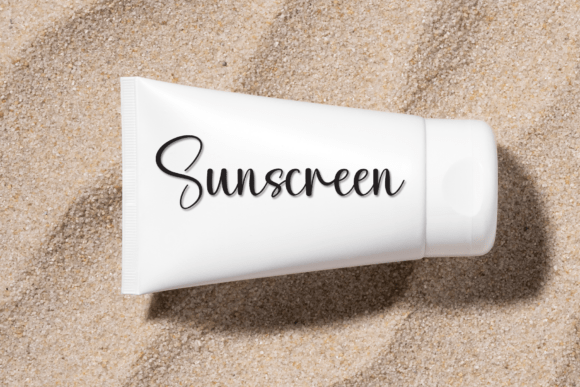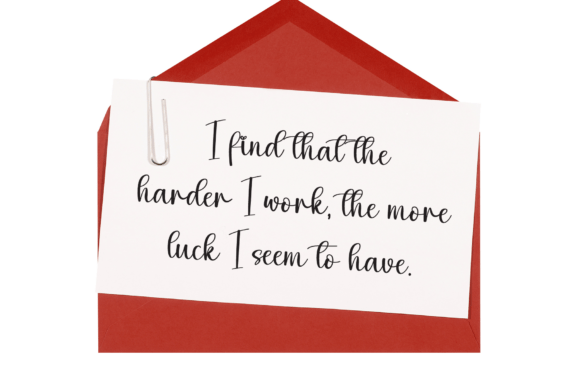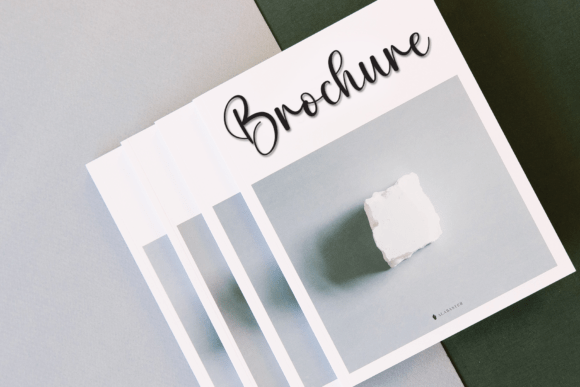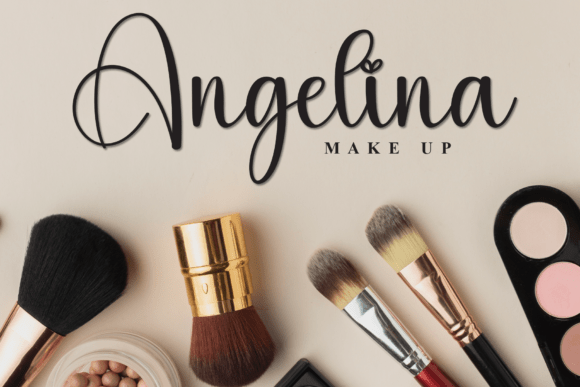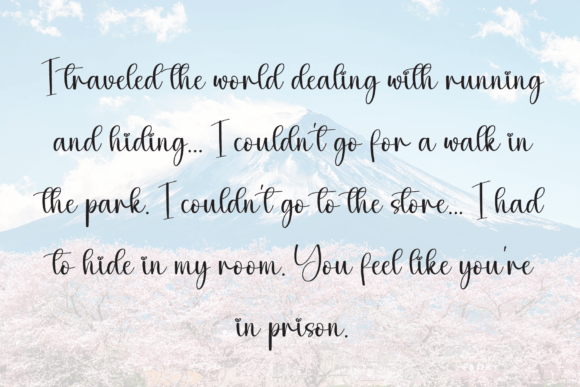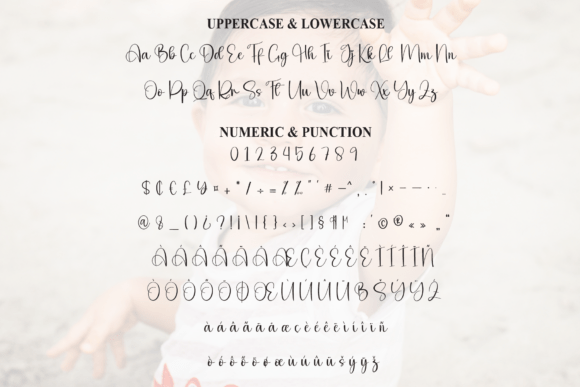
The Perfect Font for Your Next Design Project
Have you ever found yourself staring at a blank page, trying to bring your design ideas to life? We’ve all been there. It’s that moment when you’re about to give up, and then – like a ray of sunshine – you stumble upon the perfect font. For designers, finding the right font can be a game-changer. It’s what sets your work apart, adds a touch of personality, and elevates your brand’s visual identity.
Enter the Baby Southine Font – a stylish script font that embodies elegance and contemporary charm. With its fluid curves and carefully crafted letterforms, it’s the perfect choice for logos, invitations, packaging, and social media graphics. Whether you’re a seasoned designer or just starting out, the Baby Southine Font is an invaluable asset that will add a refined and sophisticated touch to any design project.
Baby Southine Font Key Features
- Font Style: Hand-drawn, cursive, and playful
- Unique Characteristics: Includes a wide range of ligatures, swashes, and alternate characters to create a unique and personalized look
Designer Review: Baby Southine Font
Overall, I’d say Baby Southine Font is a cute, whimsical font that could be perfect for certain projects. Here’s what works well:
- ✨ The font’s playful, rounded edges give it a soft, endearing feel that’s great for children’s books, nursery decor, or other kid-friendly projects.
- ✨ The font’s subtle texture adds a nice touch of authenticity, making it feel more handmade and unique.
- ✨ The font’s size and scalability are generally good, making it easy to use in various contexts.
- ⚠️ The font’s bold weight is a bit uneven, with some letters looking more condensed than others.
- ⚠️ The font’s italic and oblique styles are not as polished as the regular weight, which can make them harder to read.
- ⚠️ The font’s character set is not as comprehensive as some other fonts, which may limit its use in certain projects.
Overall, I think Baby Southine Font is a charming addition to any designer’s toolkit, but it’s not without its flaws. With some careful selection and styling, it can be a great choice for projects that require a playful, whimsical touch.
Tips for Getting the Most Out of Baby Southine Font
For the best results, use Baby Southine Font for titles and headings. Pair it with a clean and simple font for body text. Experiment with different font sizes and styles to create a visually appealing design.
Baby Southine Font is ideal for:
– Children’s book covers
– Baby product packaging
– Kids’ party invitations
– Educational materials
Alternatives to Baby Southine Font
Great Vibes Font is a modern, elegant script font perfect for creating a sophisticated and stylish design. It features flowing connections and cursive lines, making it ideal for headings, titles, and logos. Great Vibes Font is a great alternative to Baby Southine Font for designers who want to add a touch of luxury and sophistication to their designs.
Comparison: While Baby Southine Font has a more playful and whimsical feel, Great Vibes Font is more refined and sophisticated. Great Vibes Font is better suited for formal designs, whereas Baby Southine Font is more suitable for casual and creative projects.
Carolyna Pro Font is a elegant, modern script font that exudes sophistication and refinement. It features a unique blend of classic and modern elements, making it perfect for a wide range of design projects, from branding and advertising to editorial and publishing. Carolyna Pro Font is a great alternative to Baby Southine Font for designers who want to add a touch of elegance and sophistication to their designs.